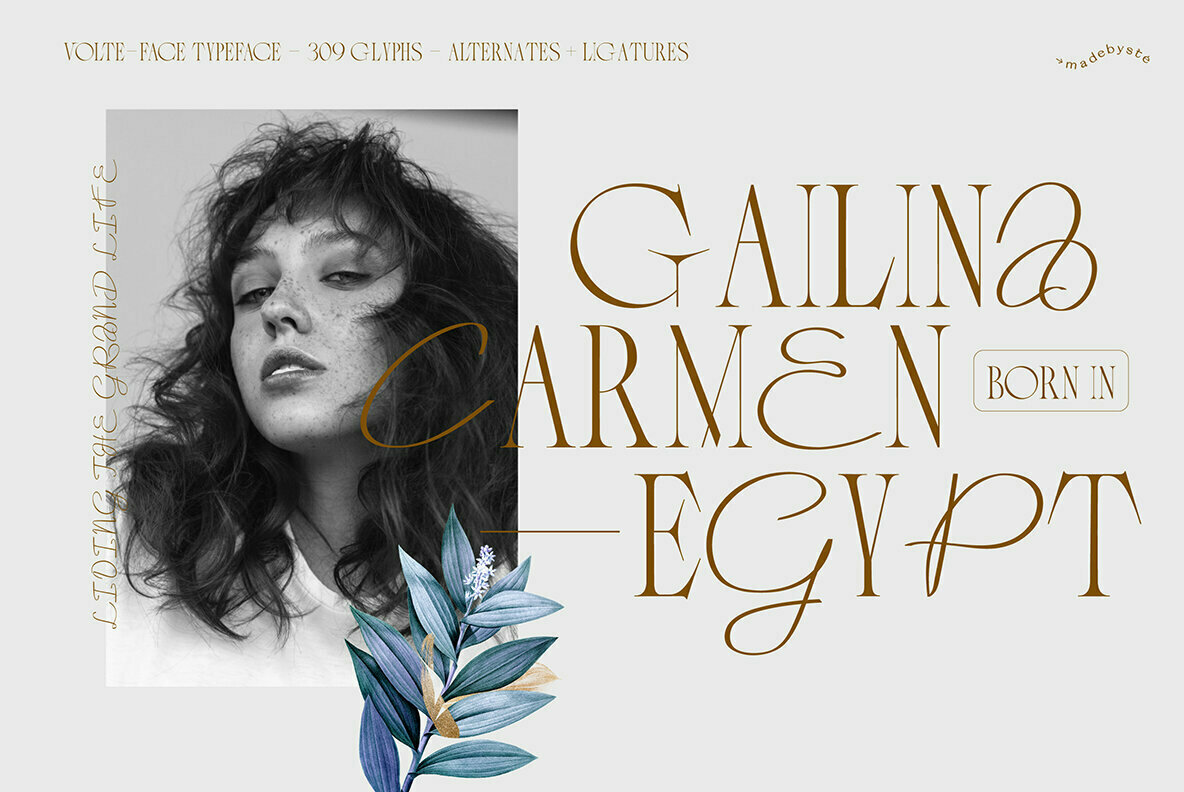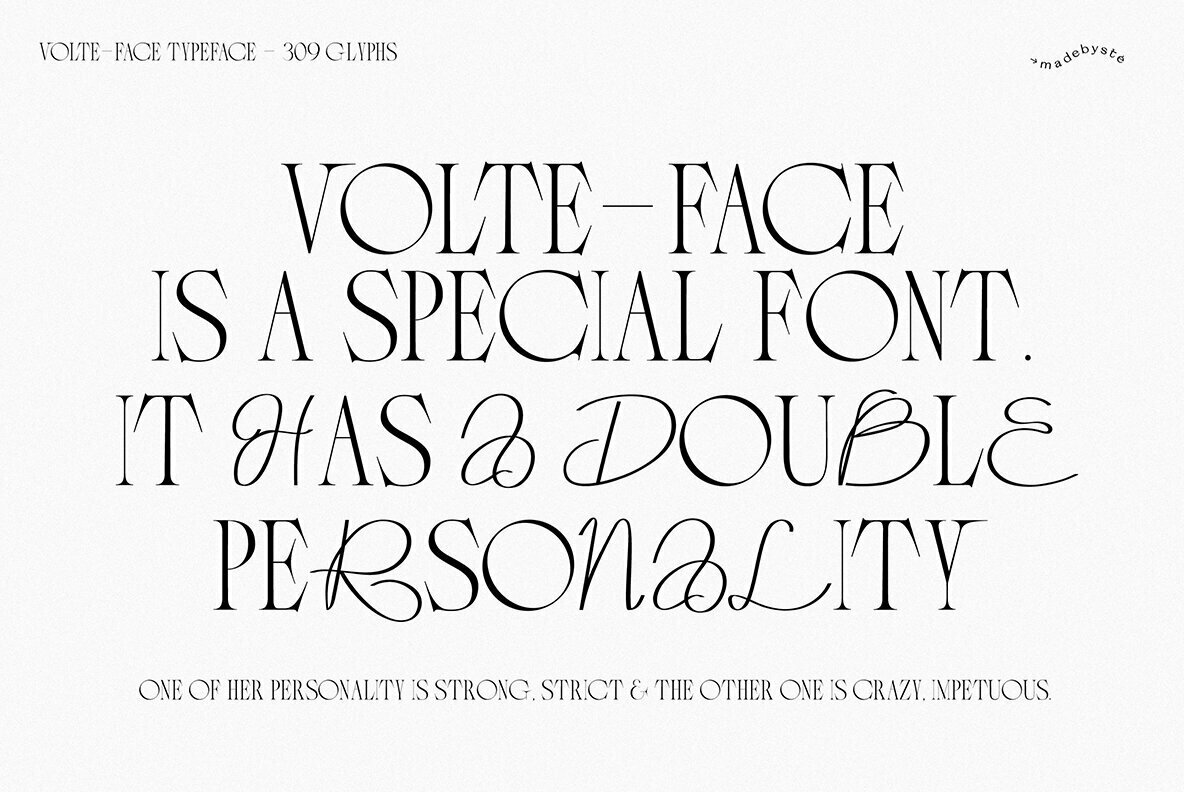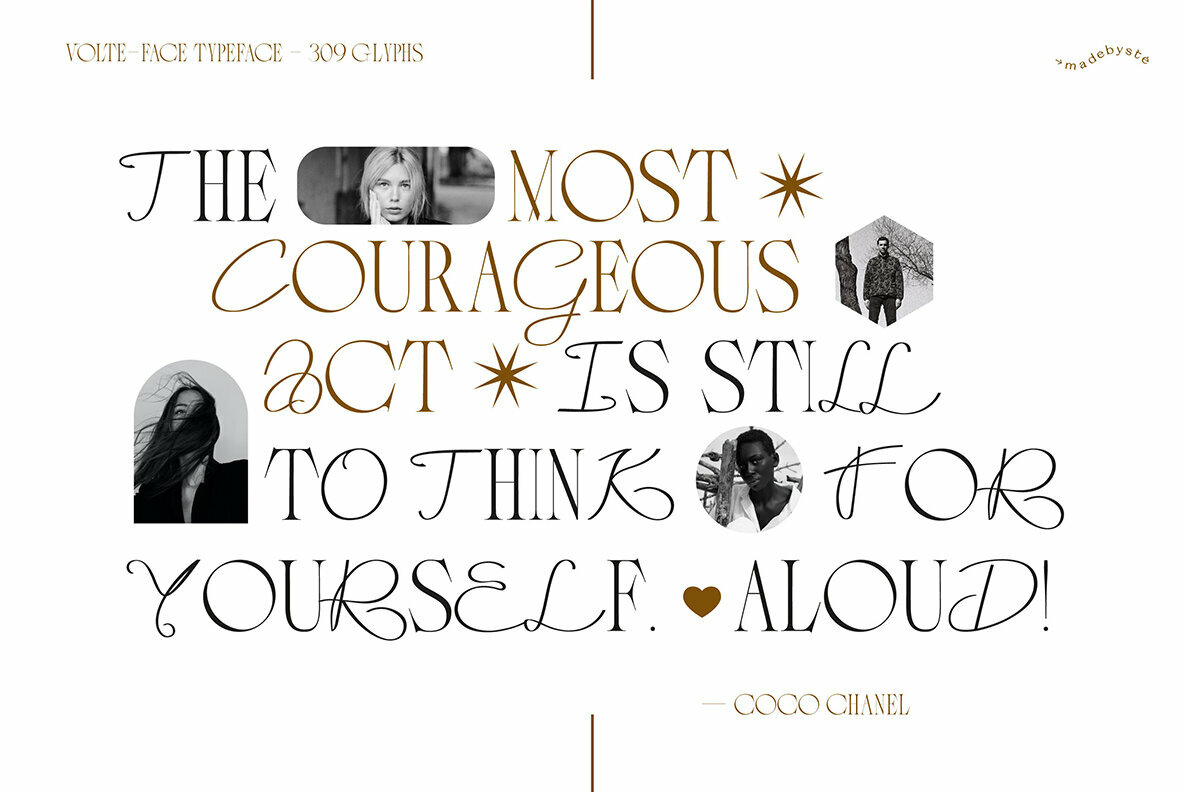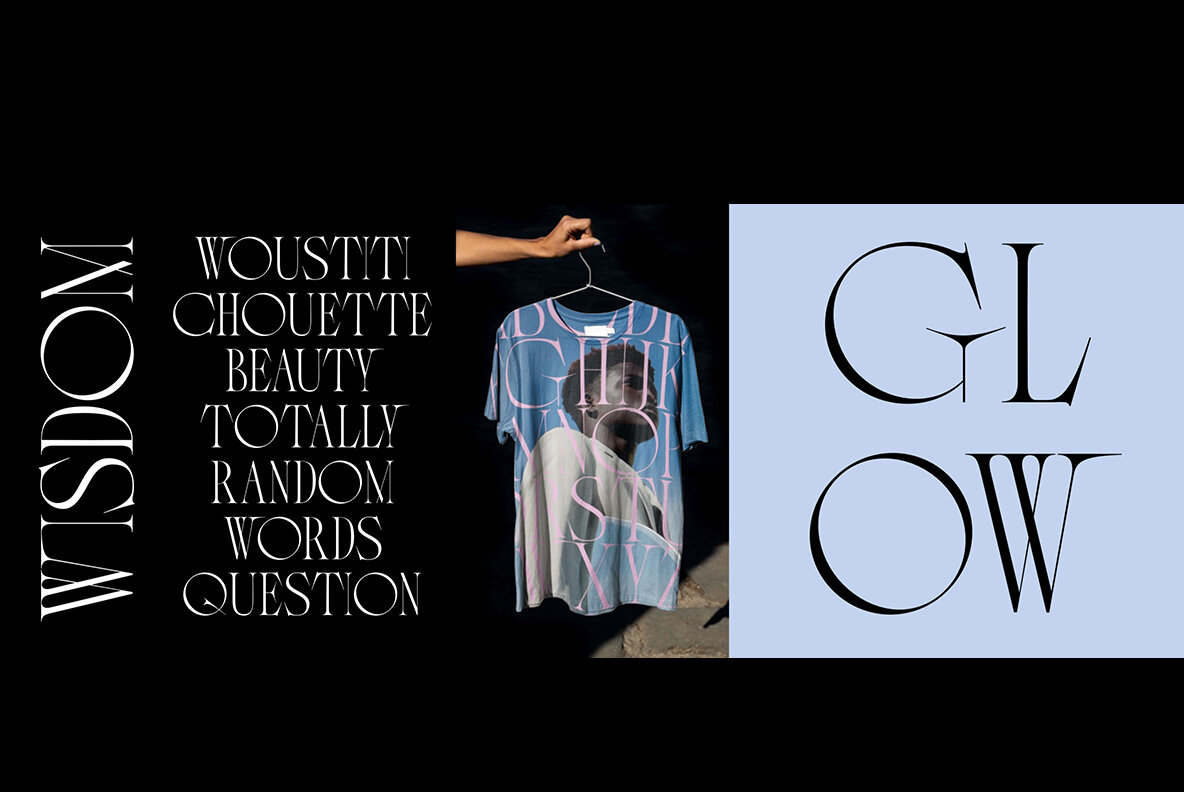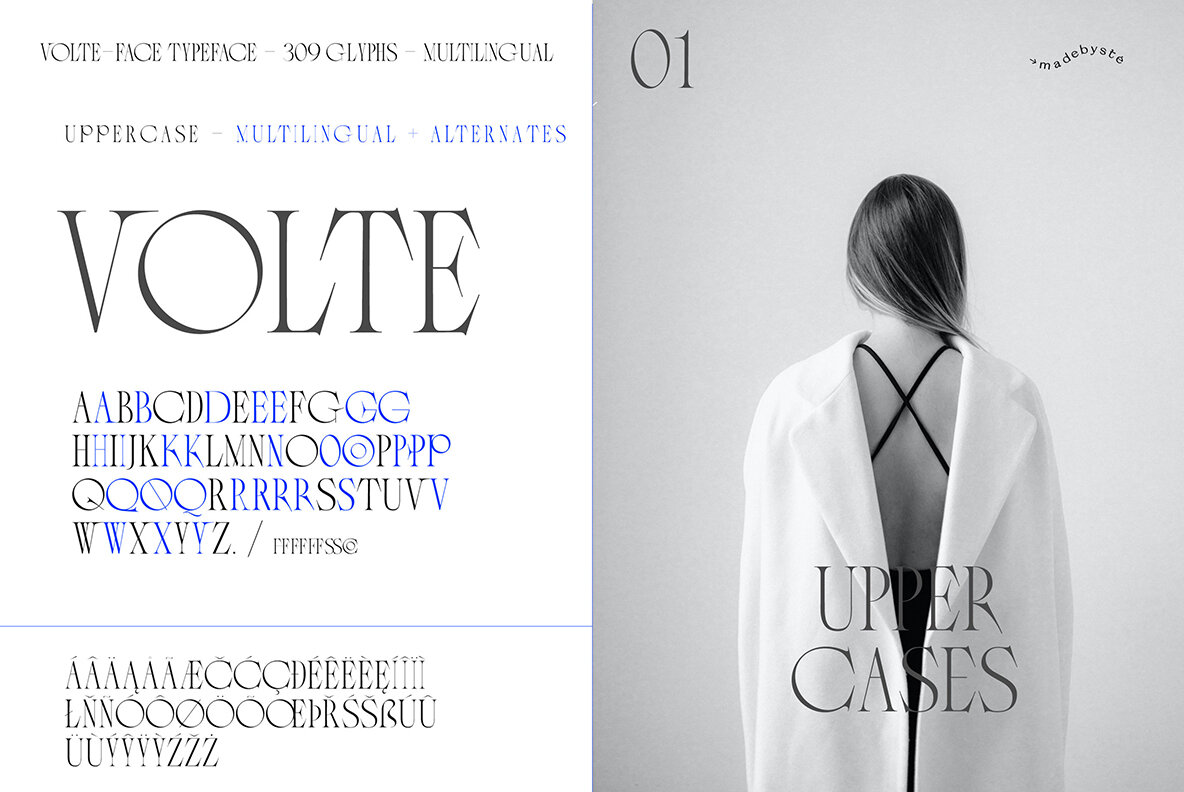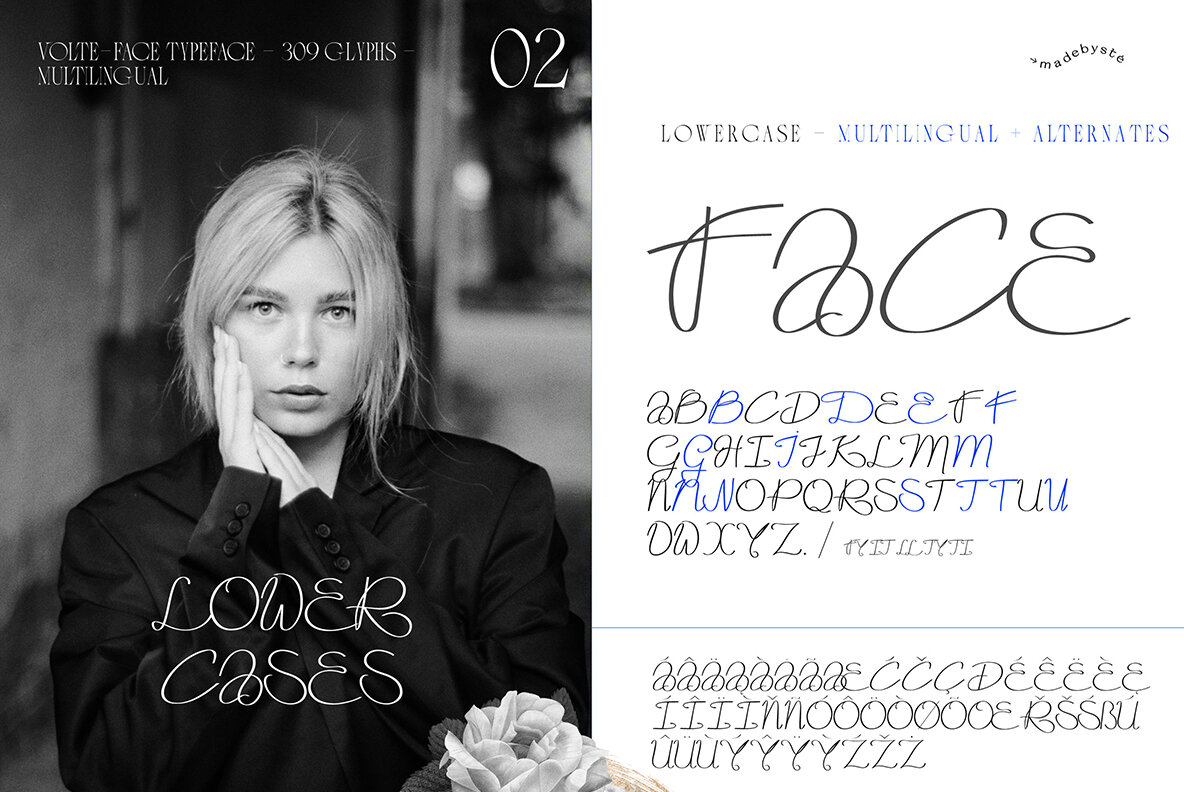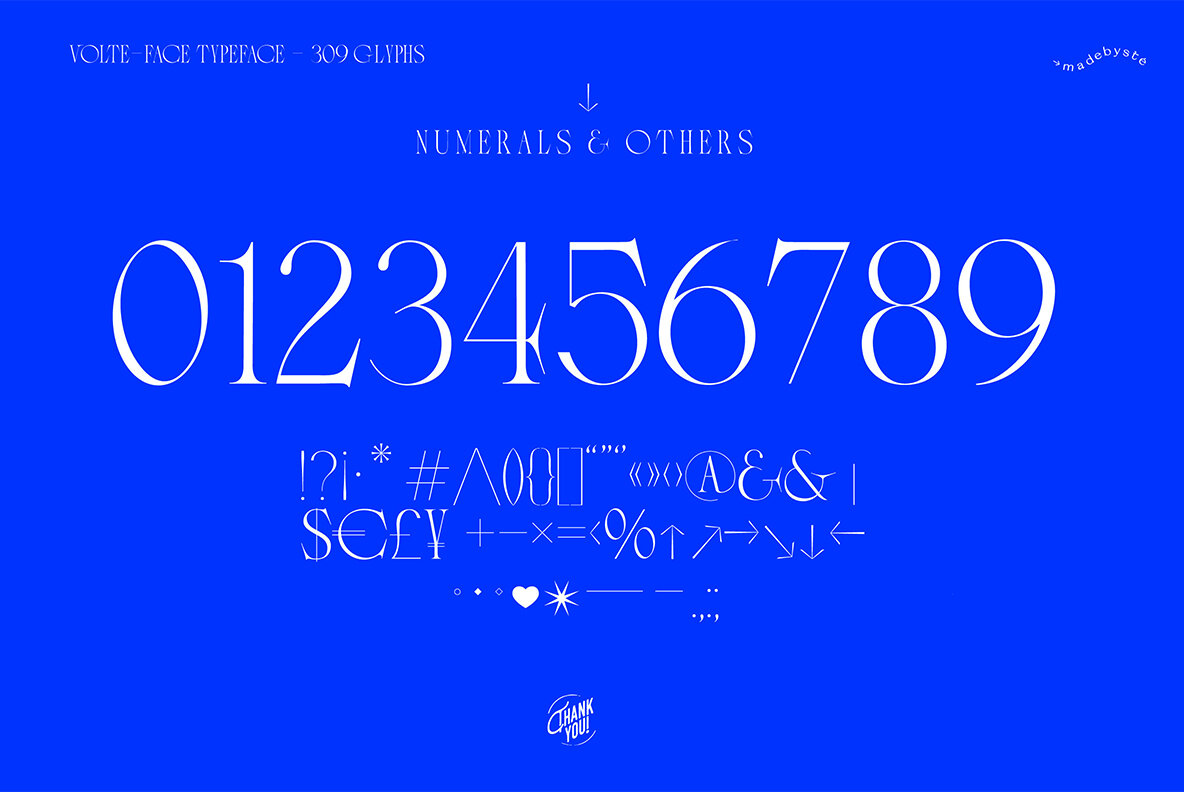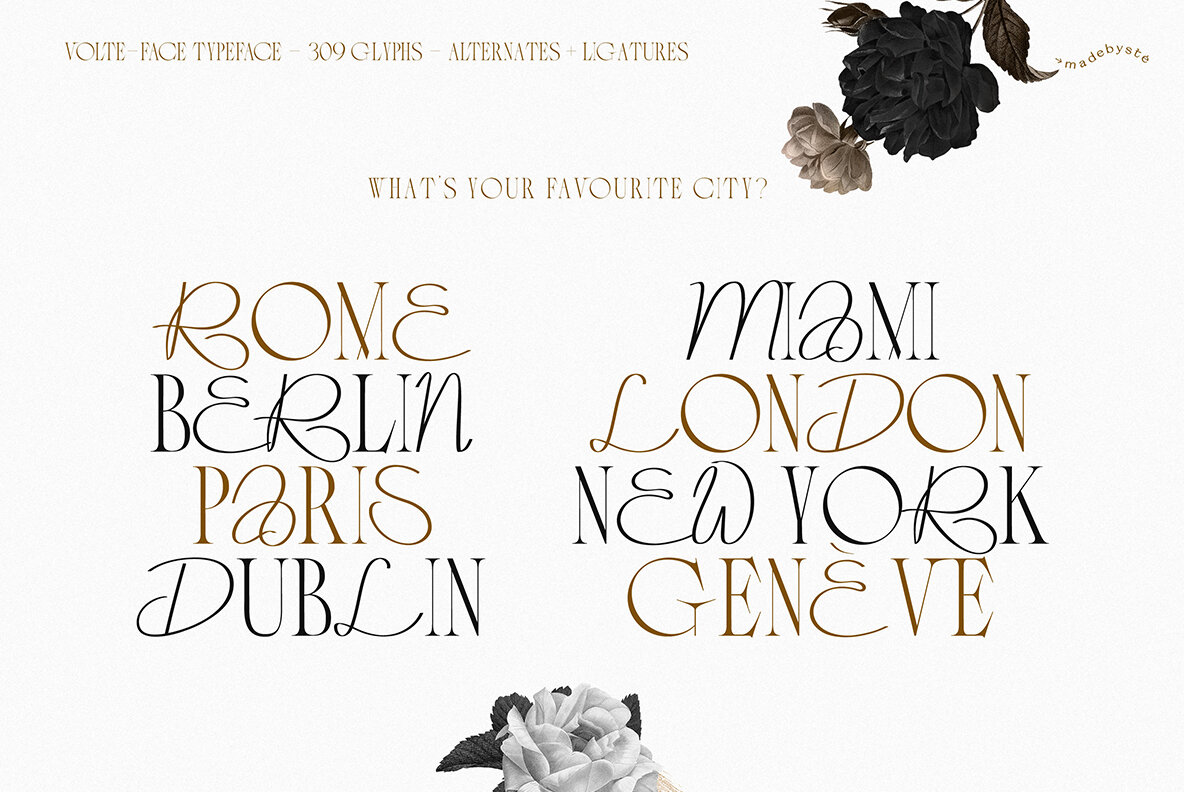
Volte-Face typeface is a mix between a chic serif and a script typeface. It has a double personality. Play with the uppercases and the lowercases to give your design a unique style. It is perfect for big headlines.